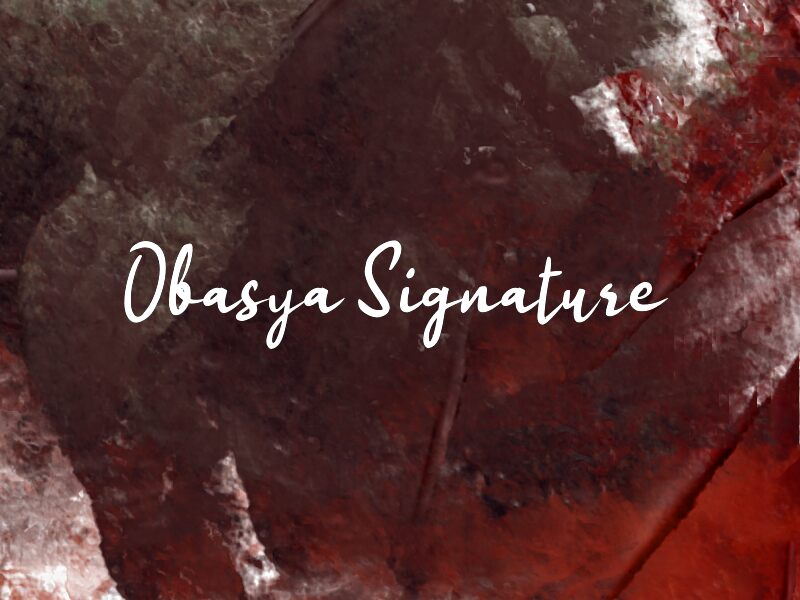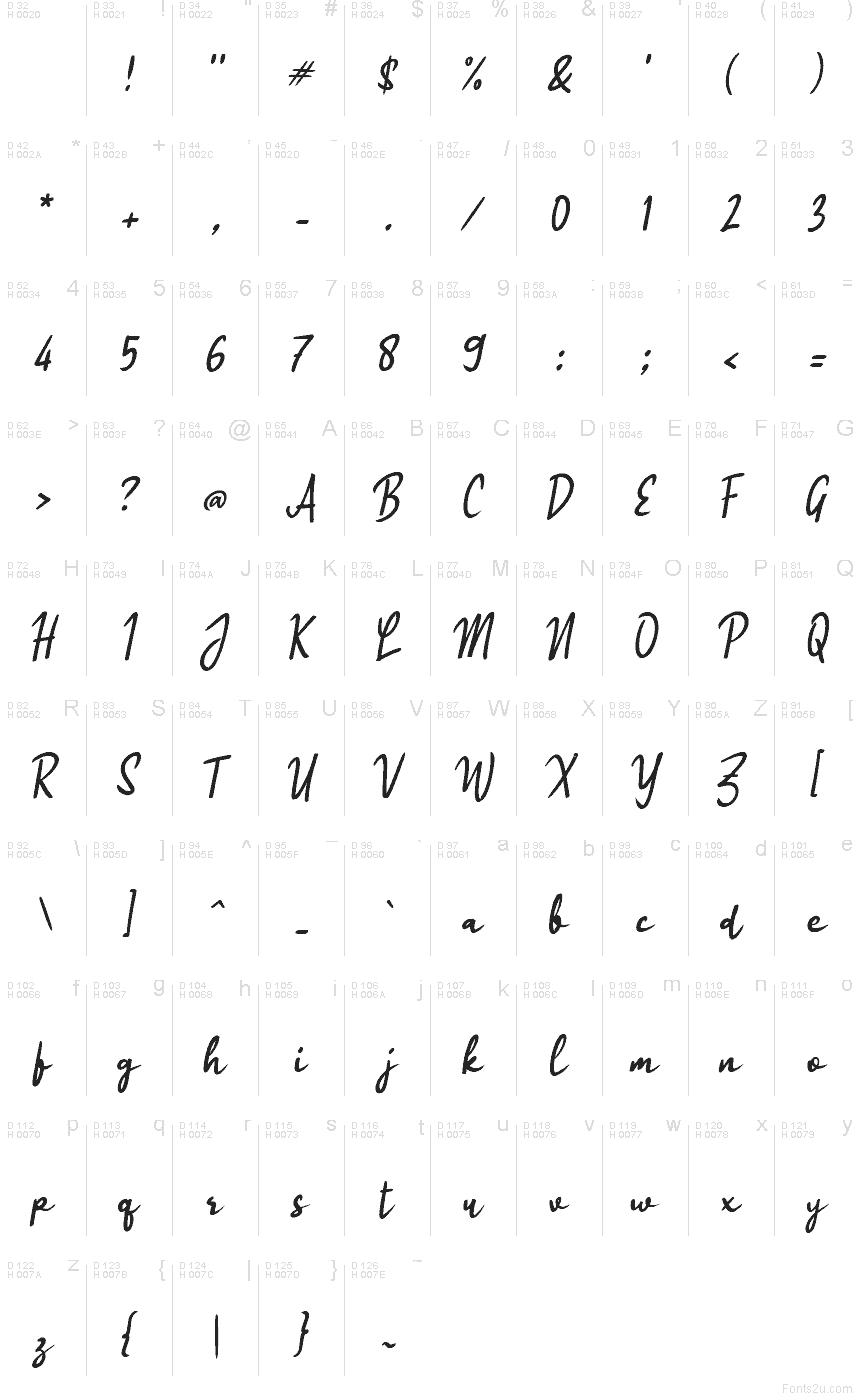
Obasya Signature
Obasya Signature font by wep is a free handwritten signature font that looks like it was brushed onto the page in one confident motion. Its flowing, slightly slanted letters and inky, textured strokes create an effortless, personal feel—elegant without being stiff, casual without getting messy. The rhythm between letters feels human and relaxed, making every word read like a quick, stylish autograph.
Using Obasya Signature, you can give logos, social media posts, product packaging, invitations, business cards, and brand marks a polished yet intimate touch. This free font shines on personal branding for creatives, boutique shops, and lifestyle bloggers who want their name to feel like a real signature. Try pairing it with a clean sans serif for body text and keep Obasya Signature larger and spaced out so its hand-drawn character can breathe.